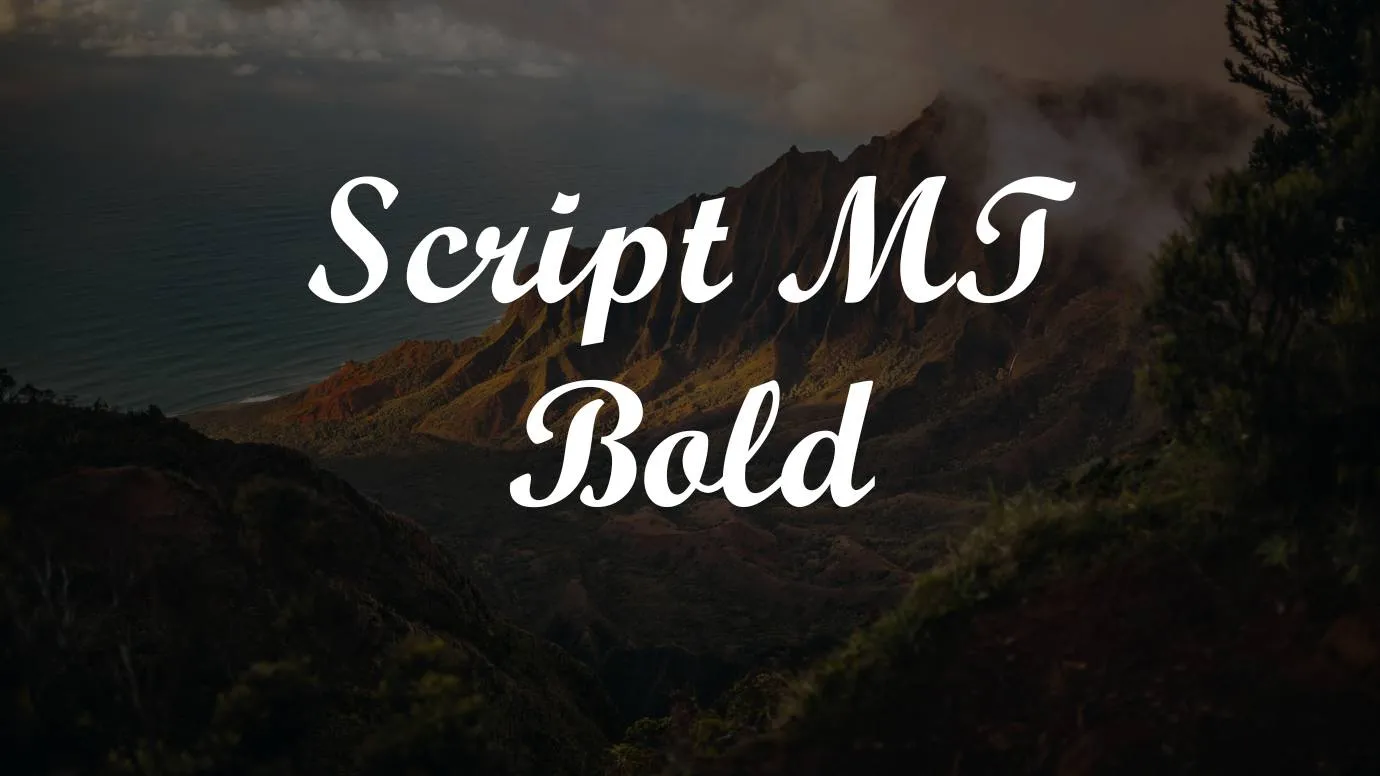
Script MT Bold Font Family was inspired by the early 20th-century German script writing styles. In spite of the heavy appearance, this typeface has a lovely style for product packaging, branding projects, and also display purposes.
Script MT Bold Font
NameScript Mt Bold Font
DesignerF.H.Steltzer
FoundryMonotype Corporation
StyleScript
Date Released1931